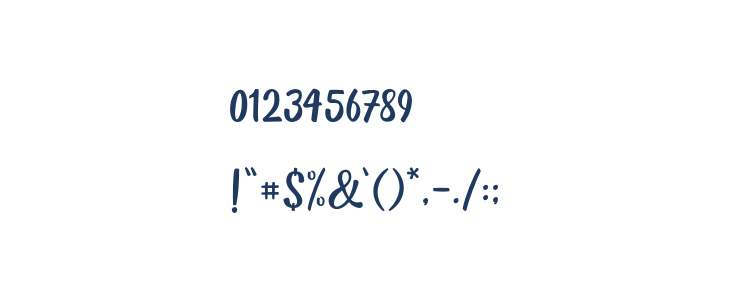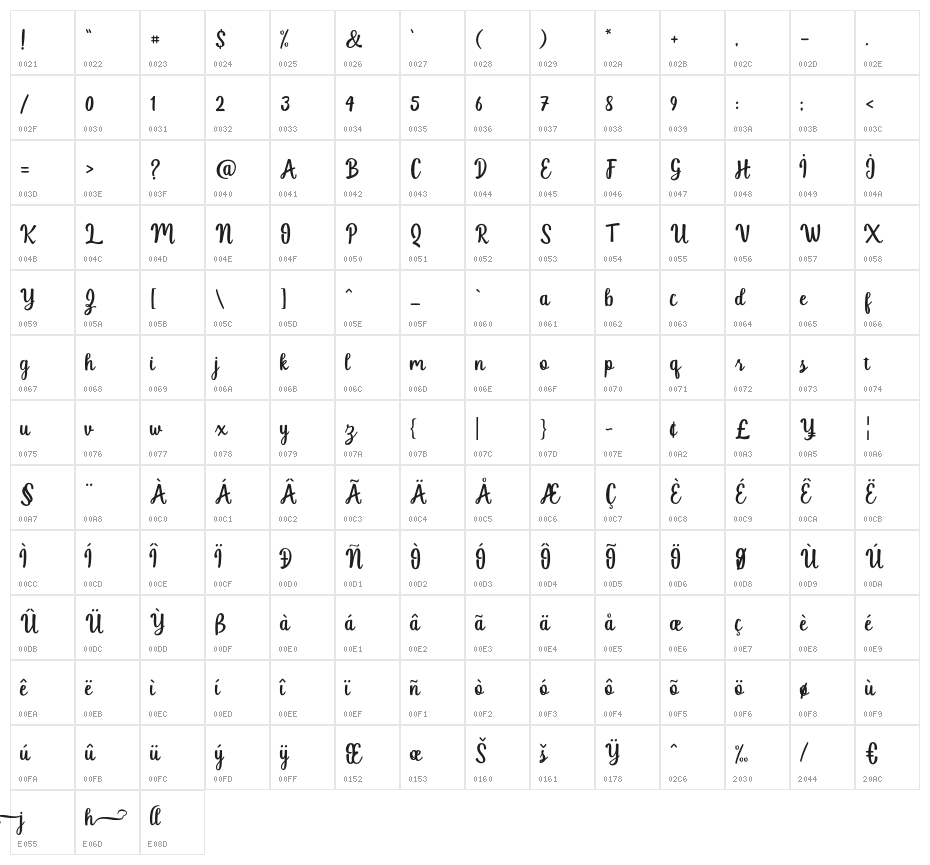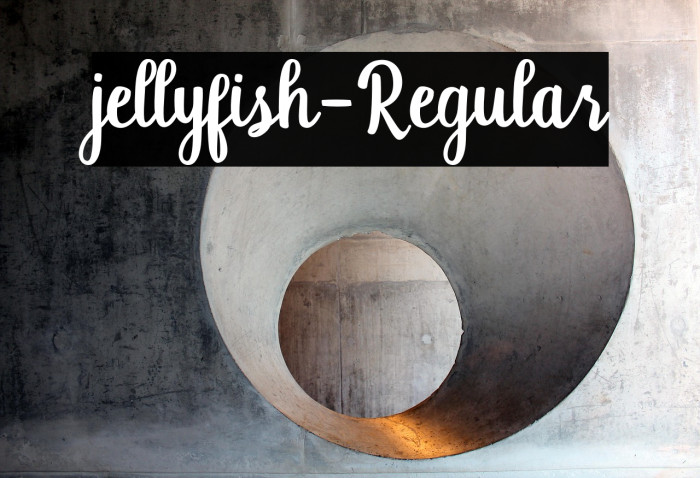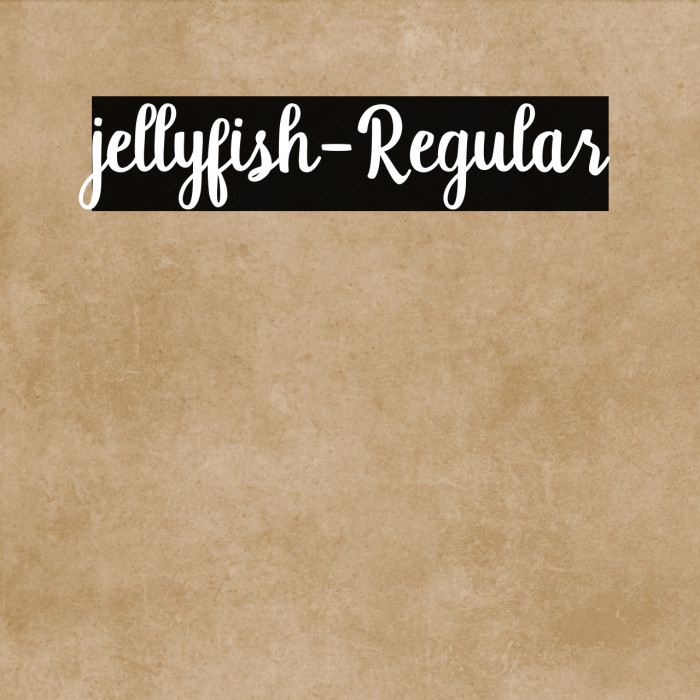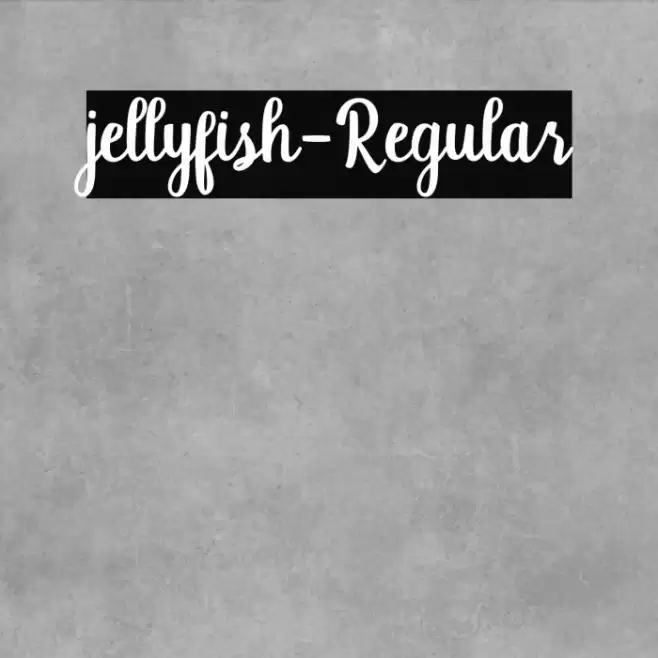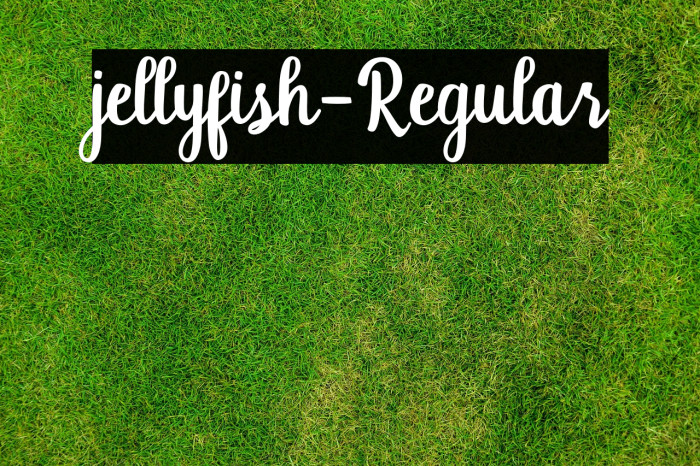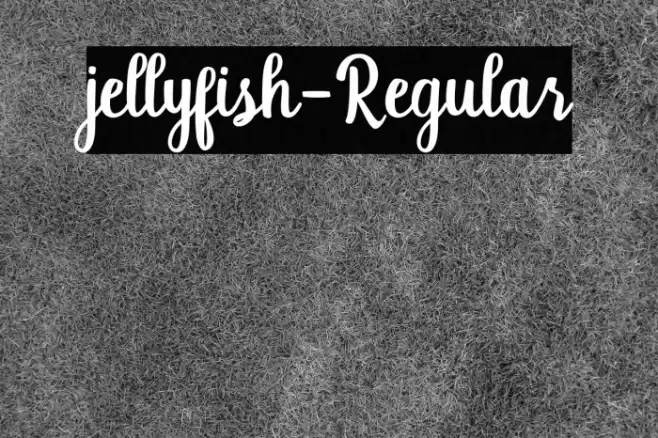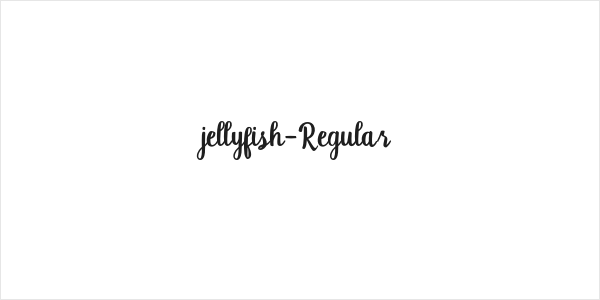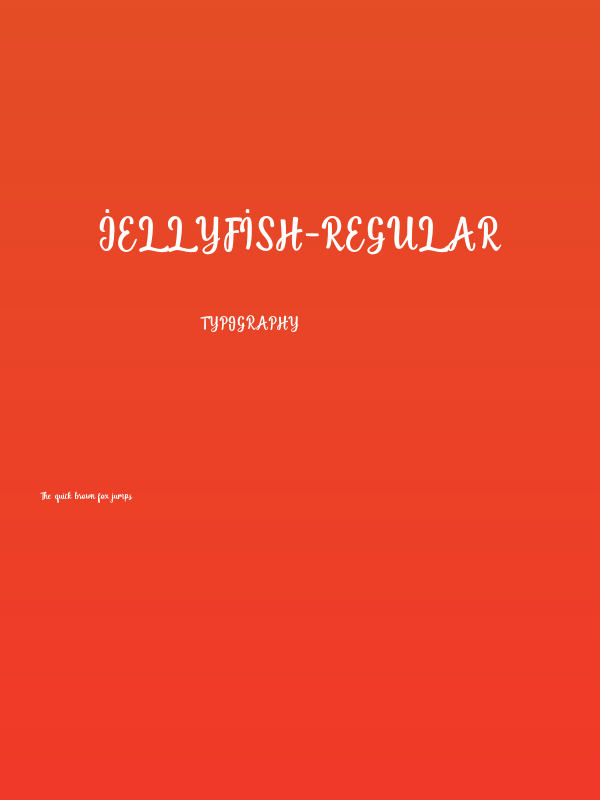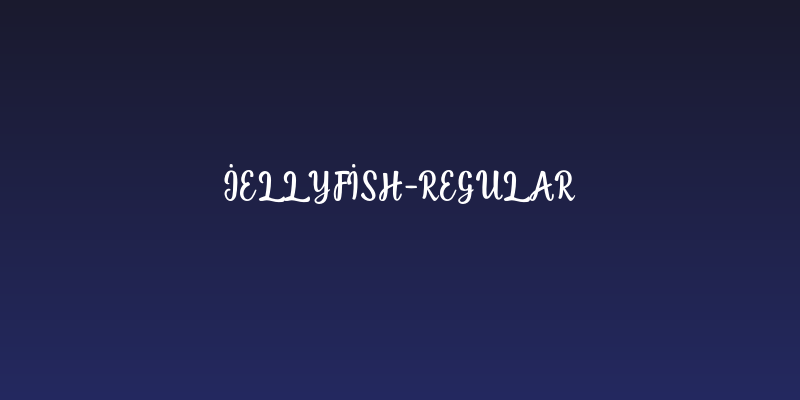
jellyfish-Regular Font
jellyfish-Regular Description
This font features a playful and flowing script style, characterized by its smooth, rounded edges and a consistent stroke width that conveys a sense of elegance and whimsy. The uppercase letters are bold and slightly exaggerated, giving them a distinctive presence, while the lowercase letters maintain a more subdued and connected form, enhancing readability. The numerals and special characters follow the same fluid design, ensuring a cohesive look across all text elements. This font's unique style makes it suitable for projects that require a touch of creativity and personality.